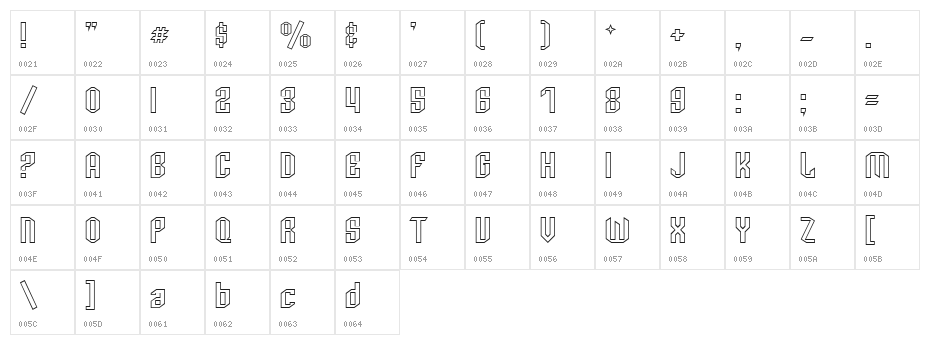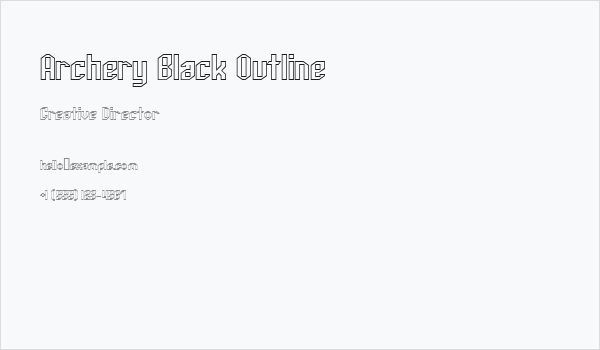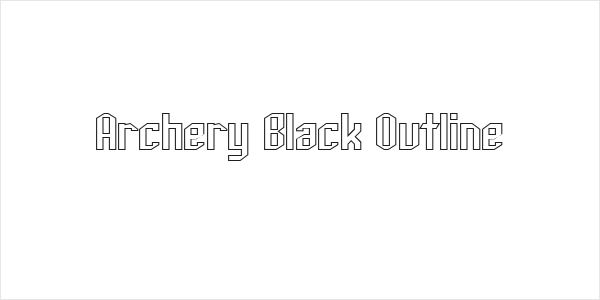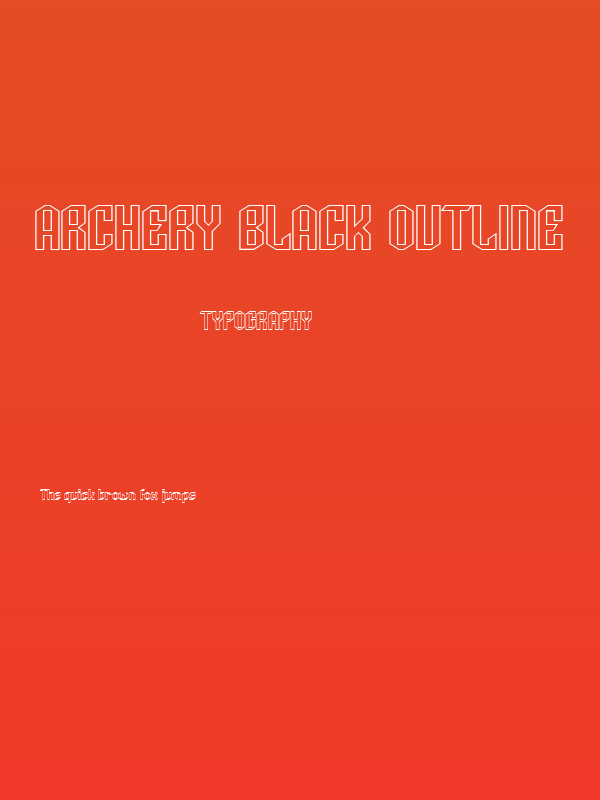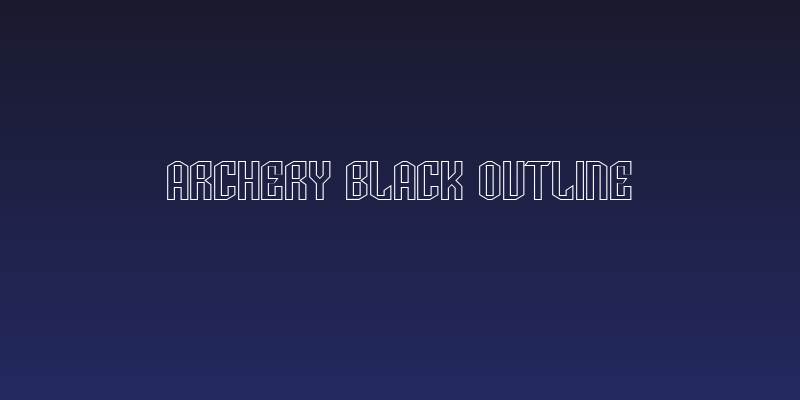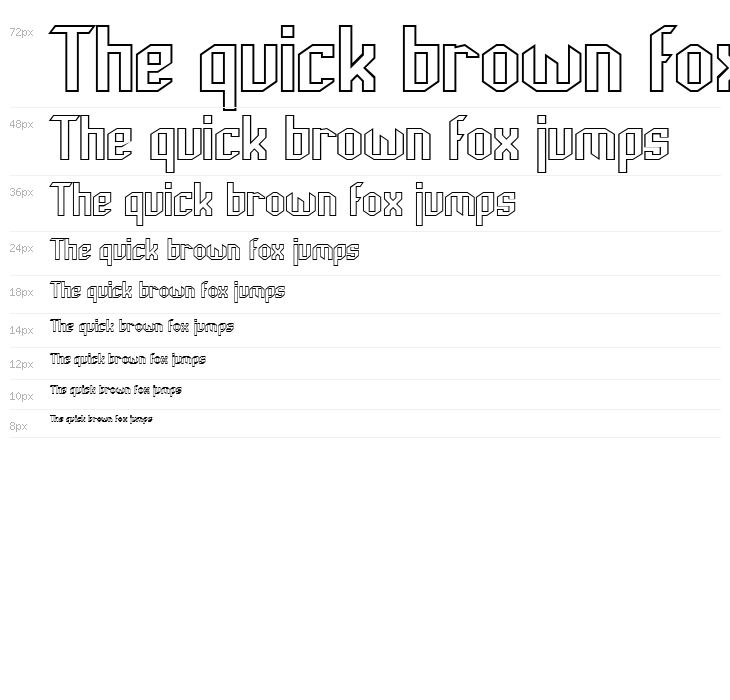
Archery Black Outline Font
Archery Black Outline Description
This font features a bold, geometric outline style that gives it a striking and modern appearance. Each character is constructed with sharp angles and straight lines, creating a sense of precision and structure. The uppercase and lowercase letters maintain a consistent design, with the lowercase being slightly more compact. The numerals and special characters follow the same geometric theme, ensuring uniformity across all glyphs. This font's outline nature makes it ideal for designs that require a bold statement without overwhelming the viewer. Its unique style is both eye-catching and versatile, suitable for a variety of creative projects.
| Proposed Projects | Ideal for logos, posters, headlines, and any design needing a bold, modern touch. |